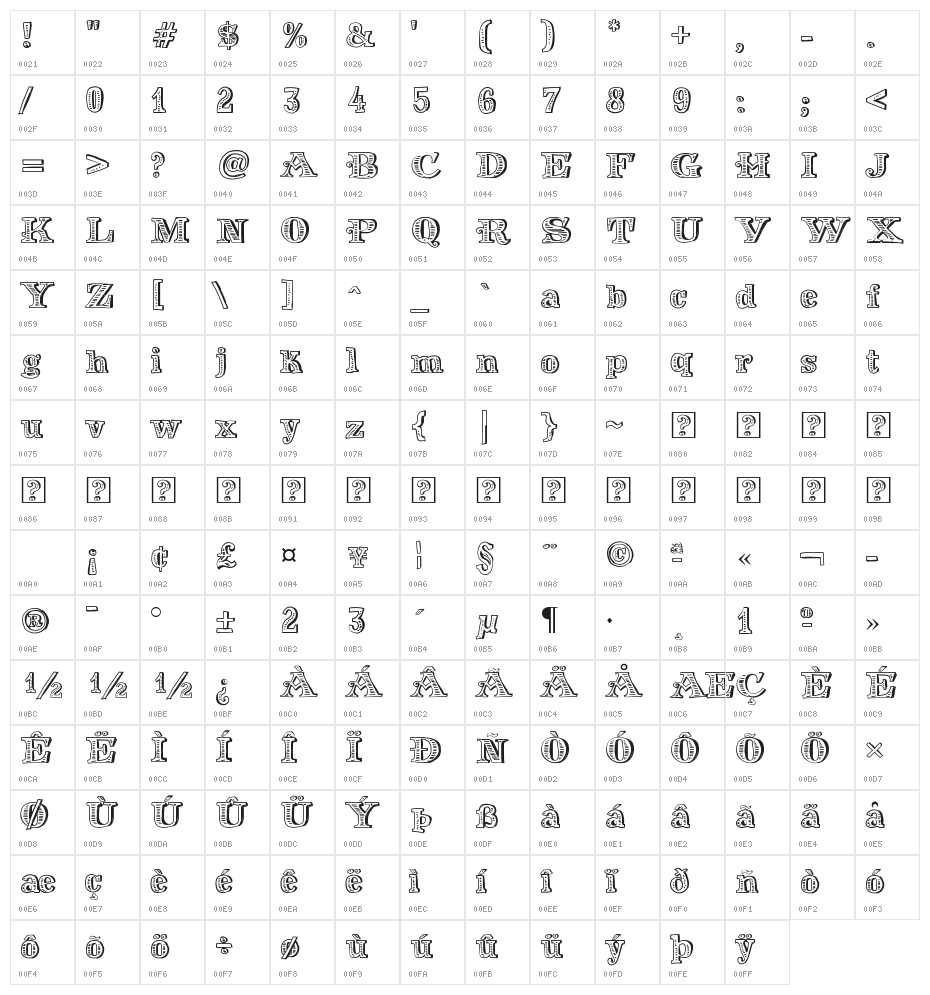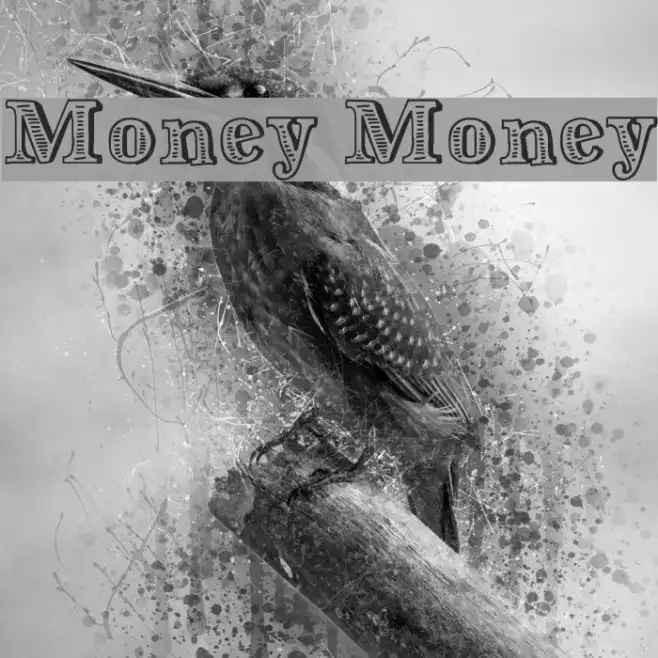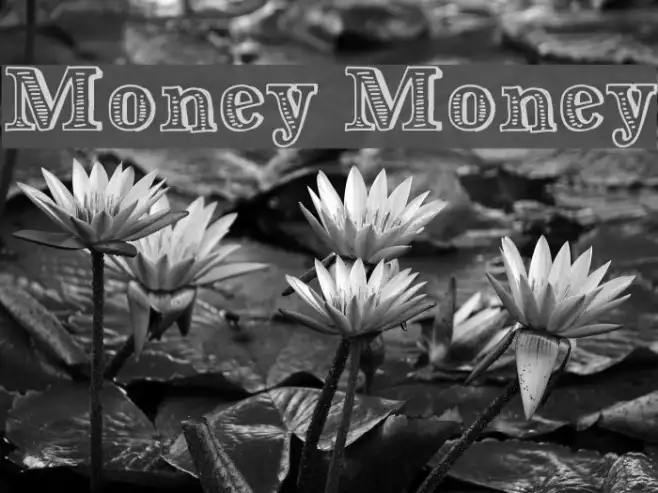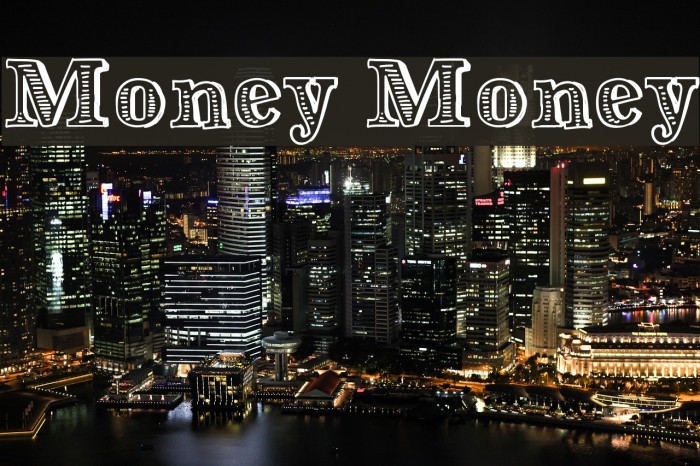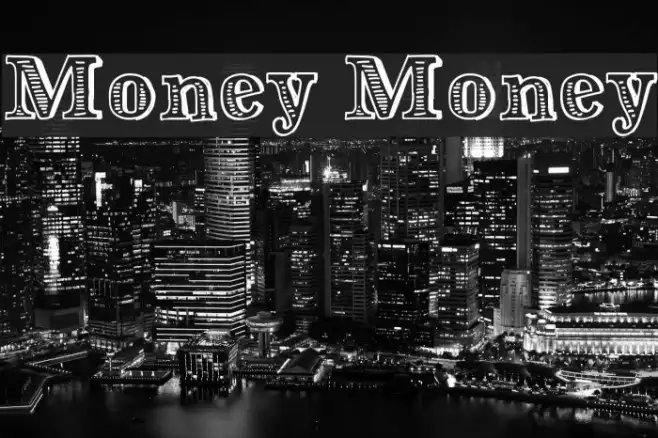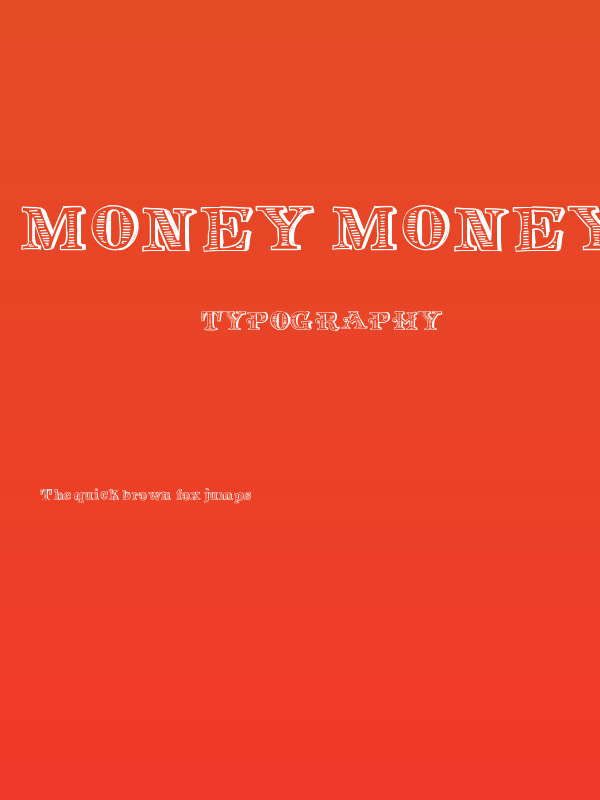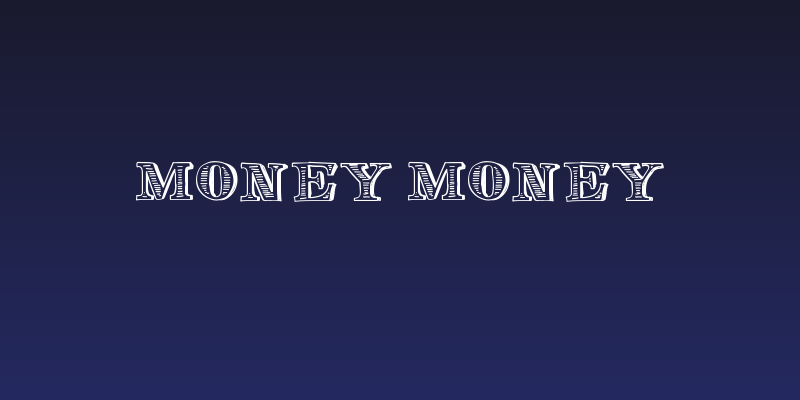
Money Money Font
Money Money Description
This font features a bold and decorative style with a vintage flair. Each character is outlined with a thick border and filled with intricate, parallel lines that give it a textured appearance. The uppercase letters are particularly striking, with strong serifs and a sense of grandeur. The lowercase letters maintain the same decorative elements, ensuring consistency throughout the typeface. Numbers and special characters are equally ornate, making this font ideal for eye-catching designs. The overall look is reminiscent of old-fashioned currency or carnival posters, adding a touch of nostalgia and charm.
| Proposed Projects | Ideal for vintage-themed posters, branding for retro products, or any design needing a nostalgic touch. |